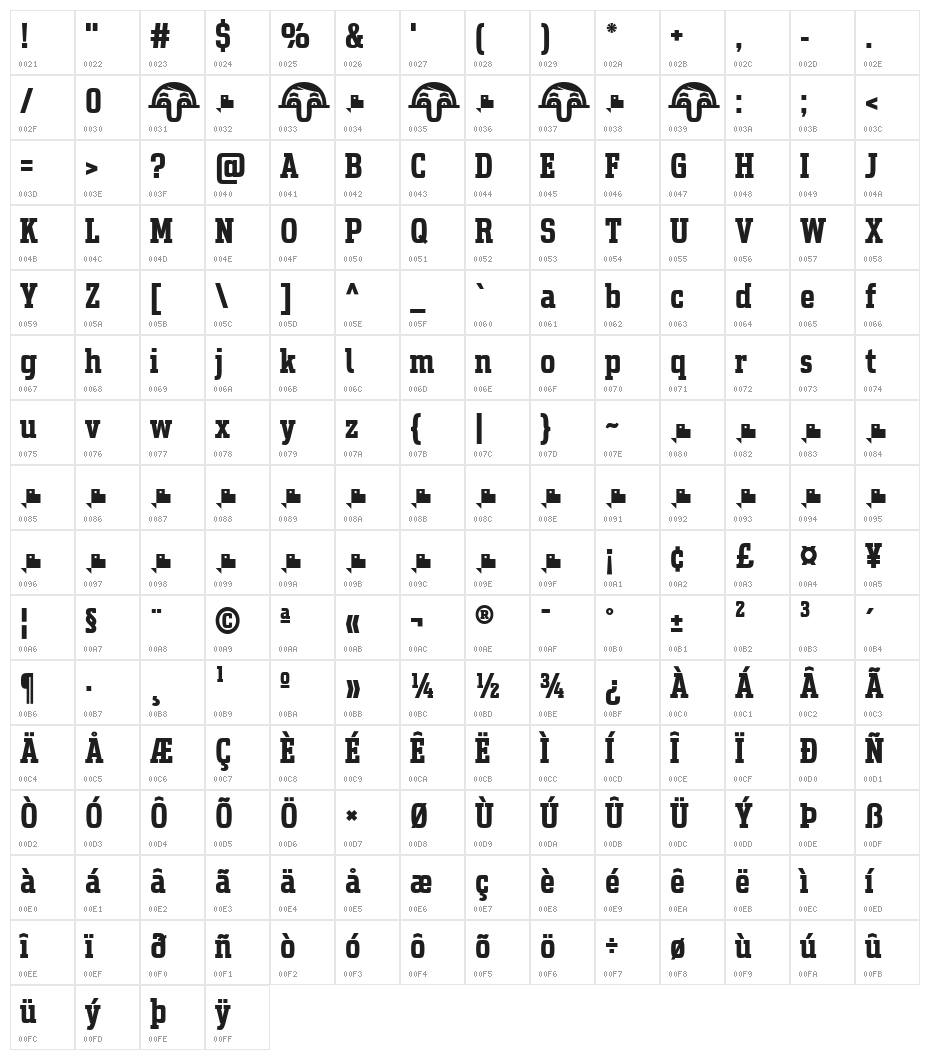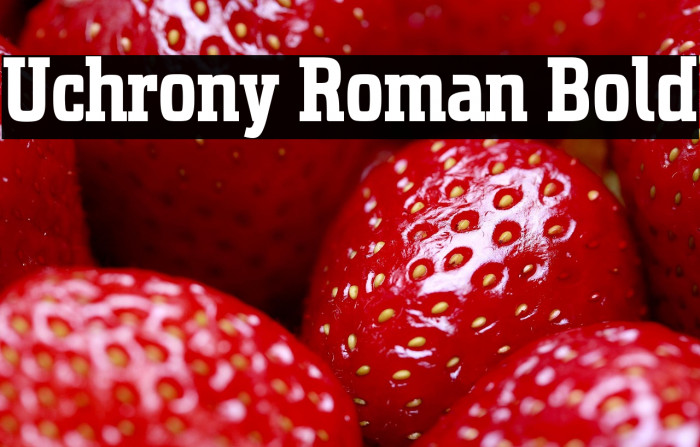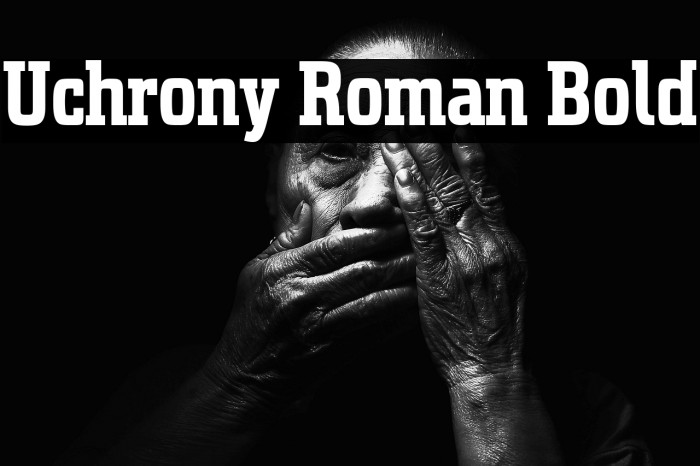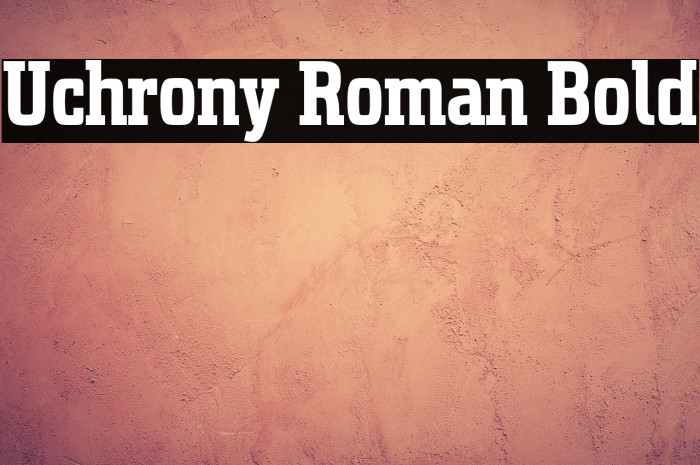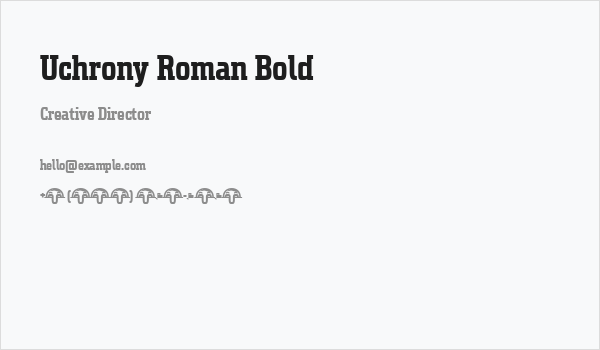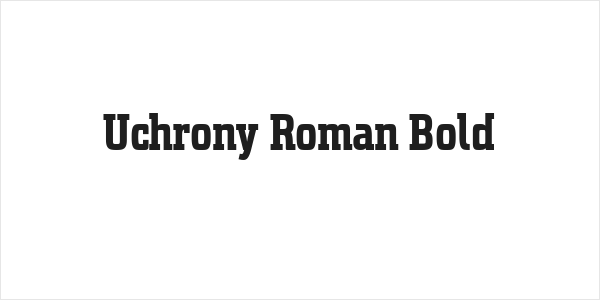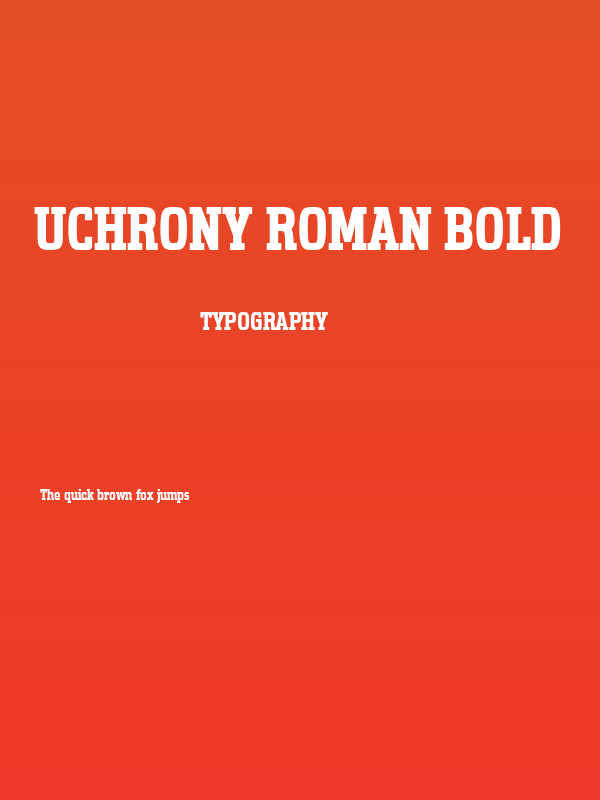
Uchrony Roman Bold Font
Uchrony Roman Bold Description
This font features bold, strong letterforms with a distinct slab serif style. The uppercase and lowercase characters are designed with a robust presence, making them highly legible and impactful. The numbers and special characters maintain the same boldness, ensuring consistency across all elements. The serifs are prominent and add a classic touch to the overall modern aesthetic. This font is suitable for creating a commanding visual presence in various design projects.